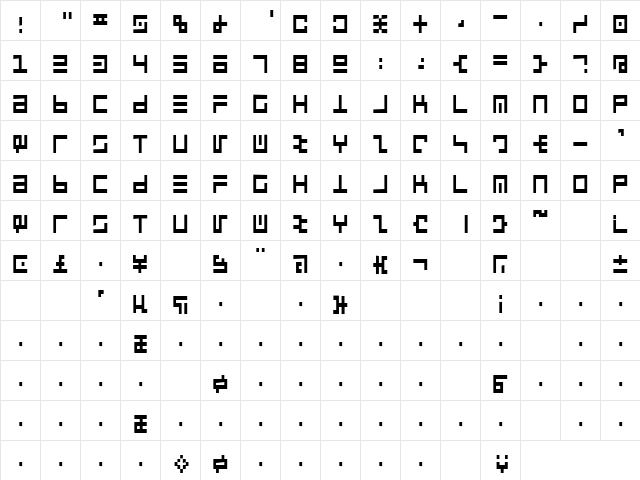
Take The Money 5 Regular
Design Context for Take The Money 5 Typeface
Take The Money 5 is a composed and adaptable typeface that performs quietly and consistently across a wide range of design contexts.
Pro Tip: Use Take The Money 5 in both headline and body roles to test its range before committing to a single application.